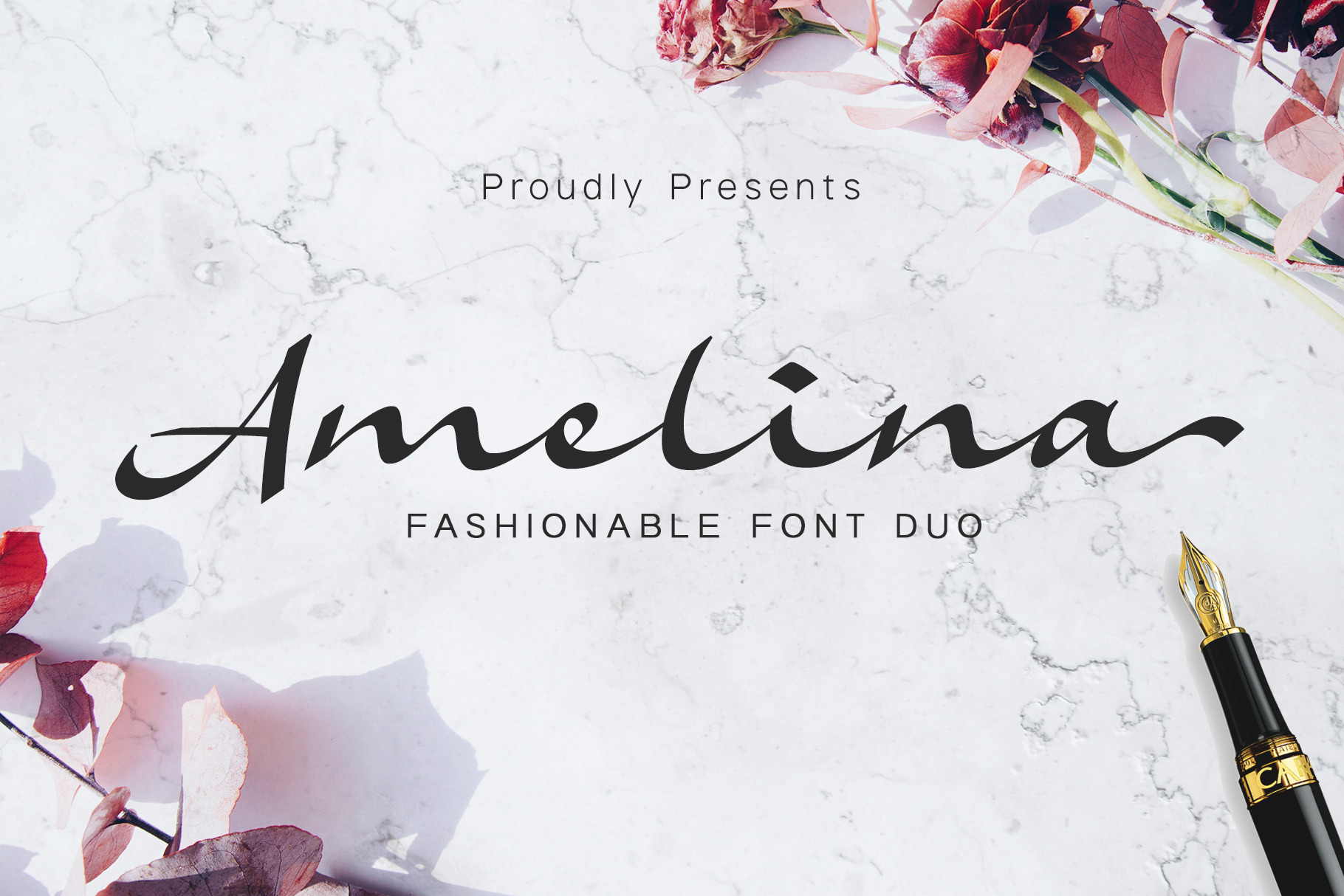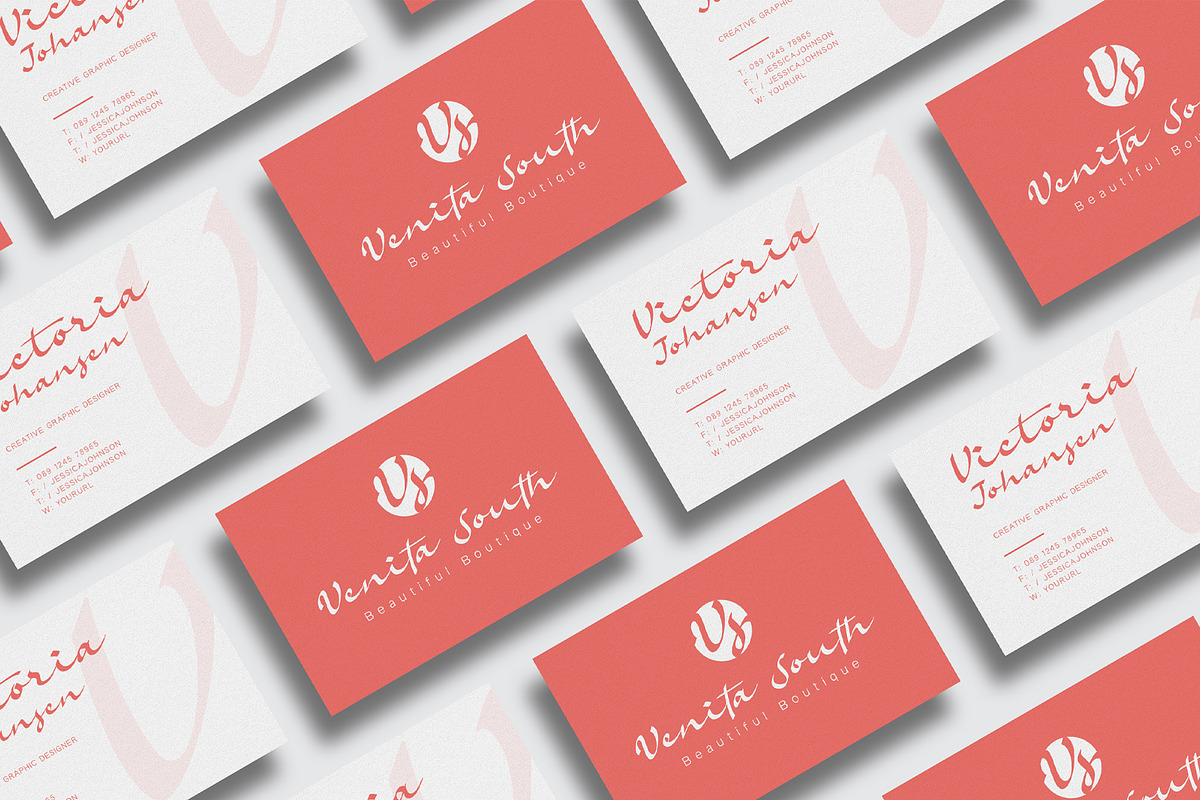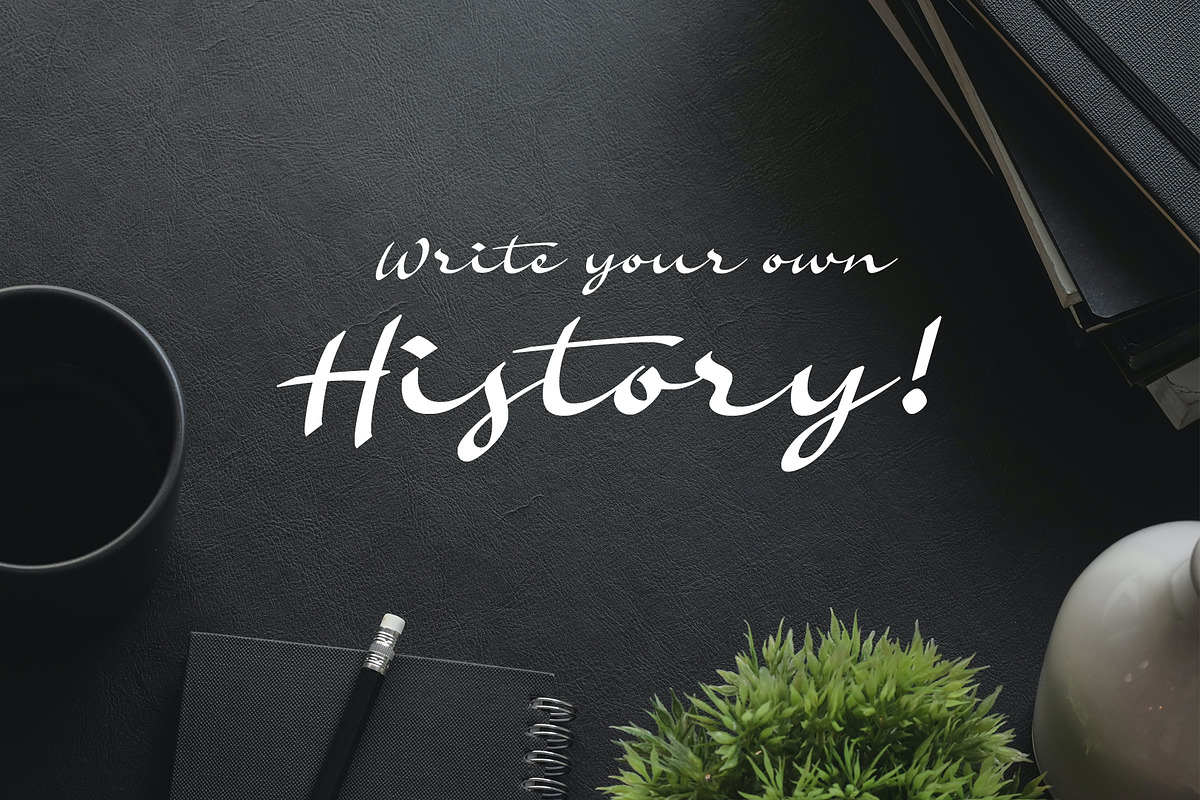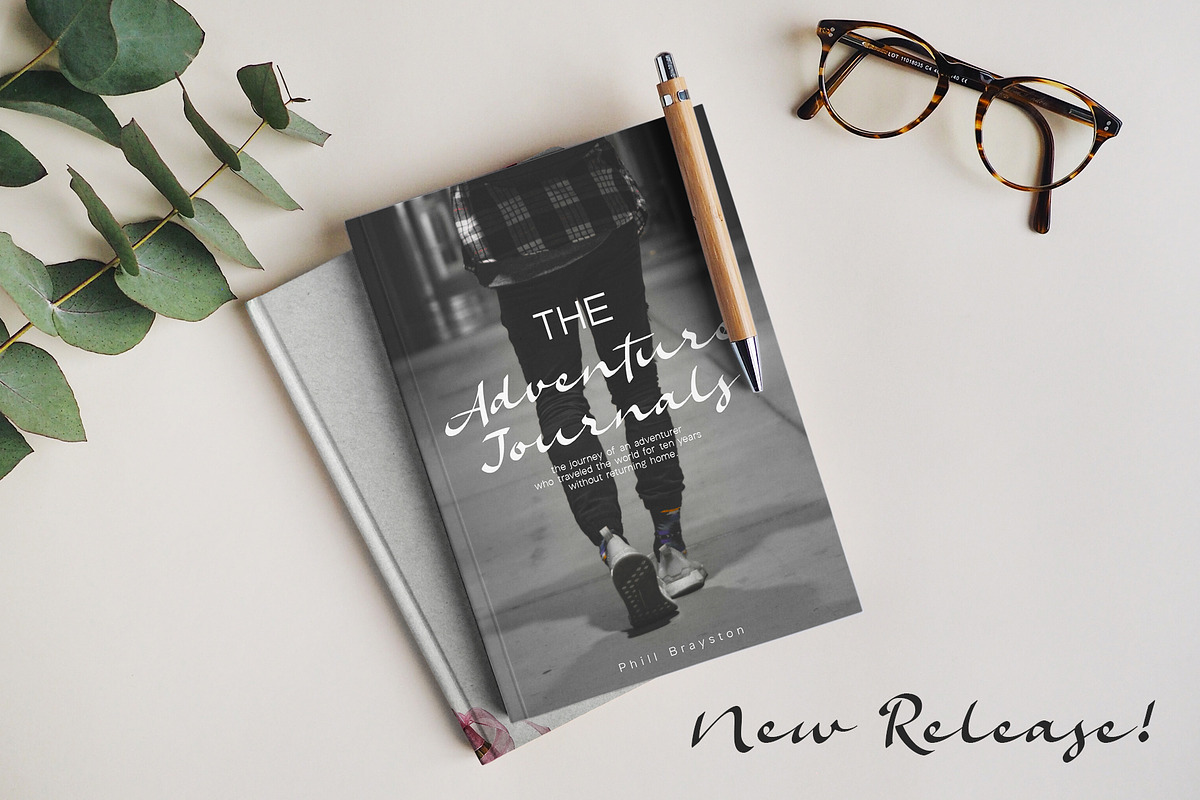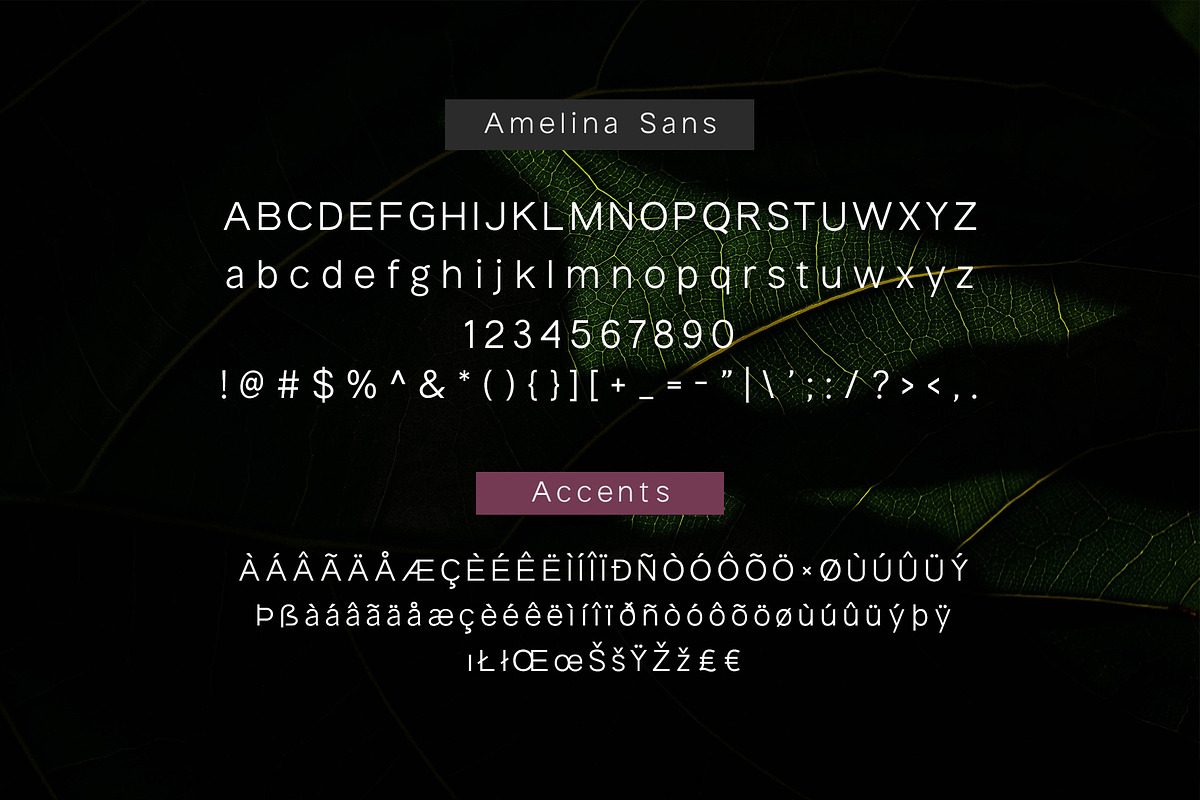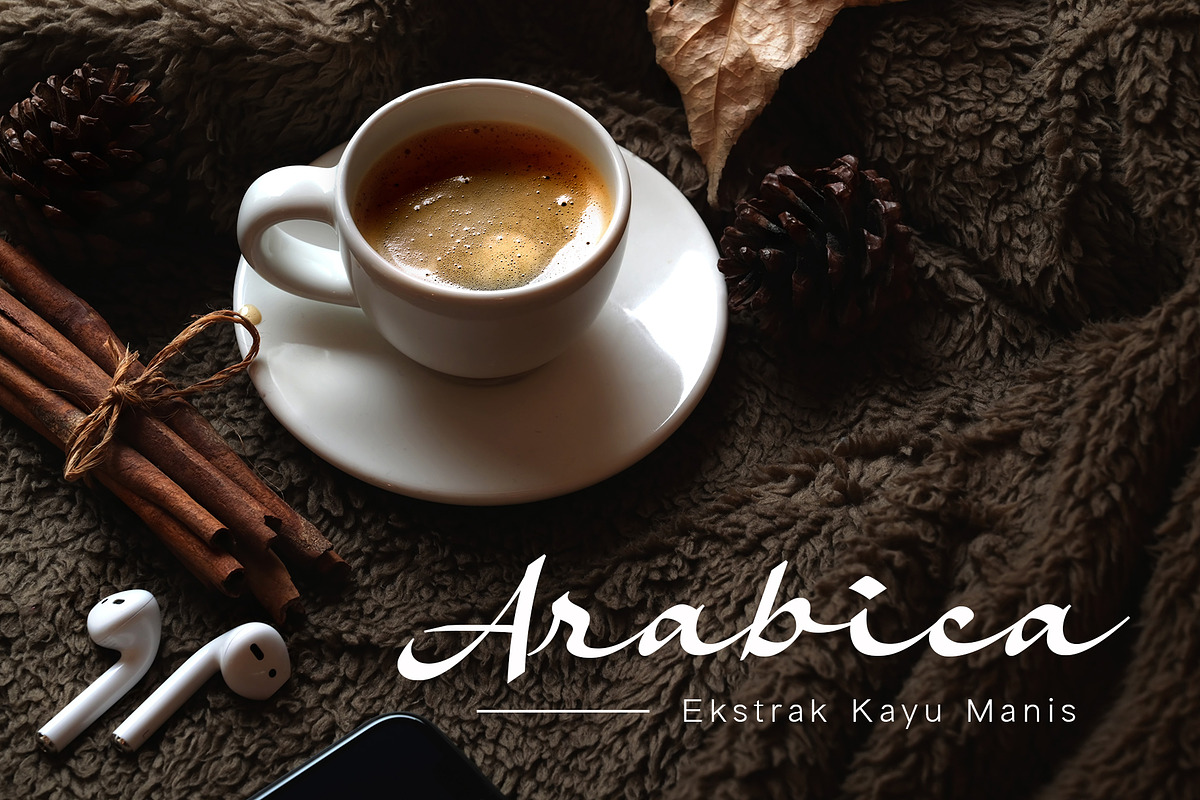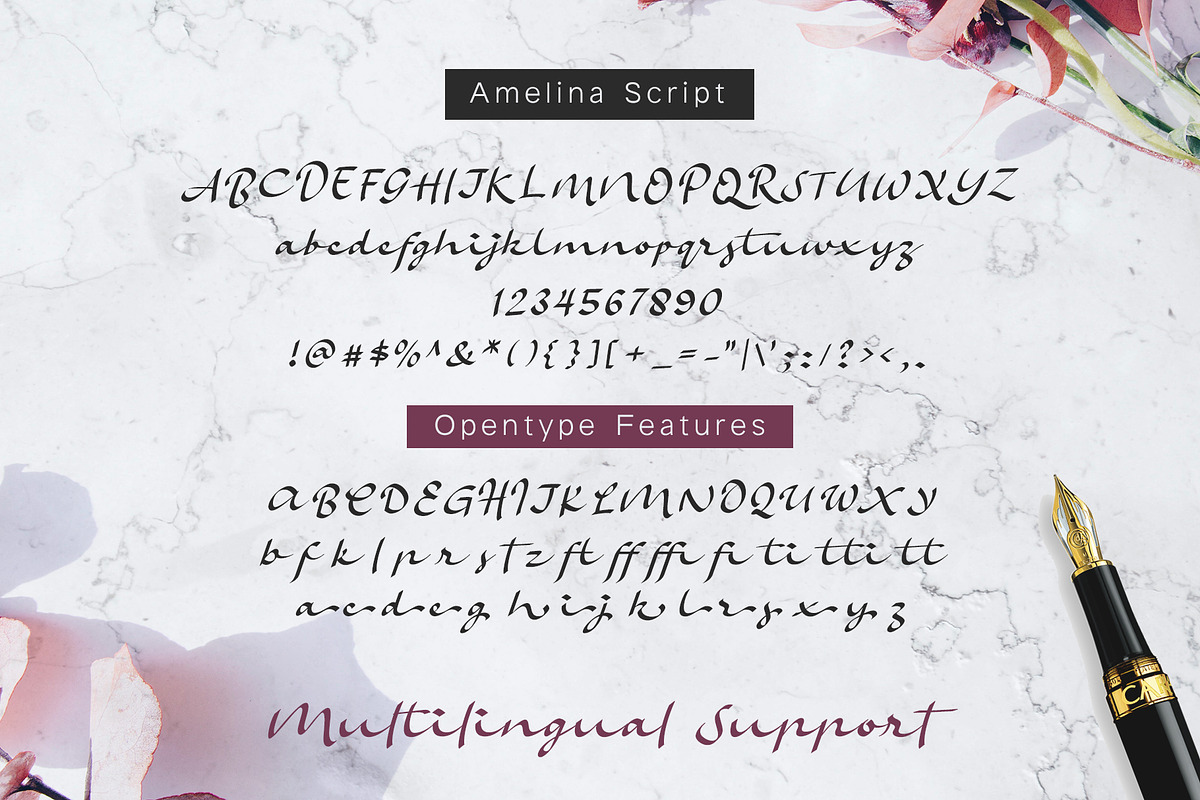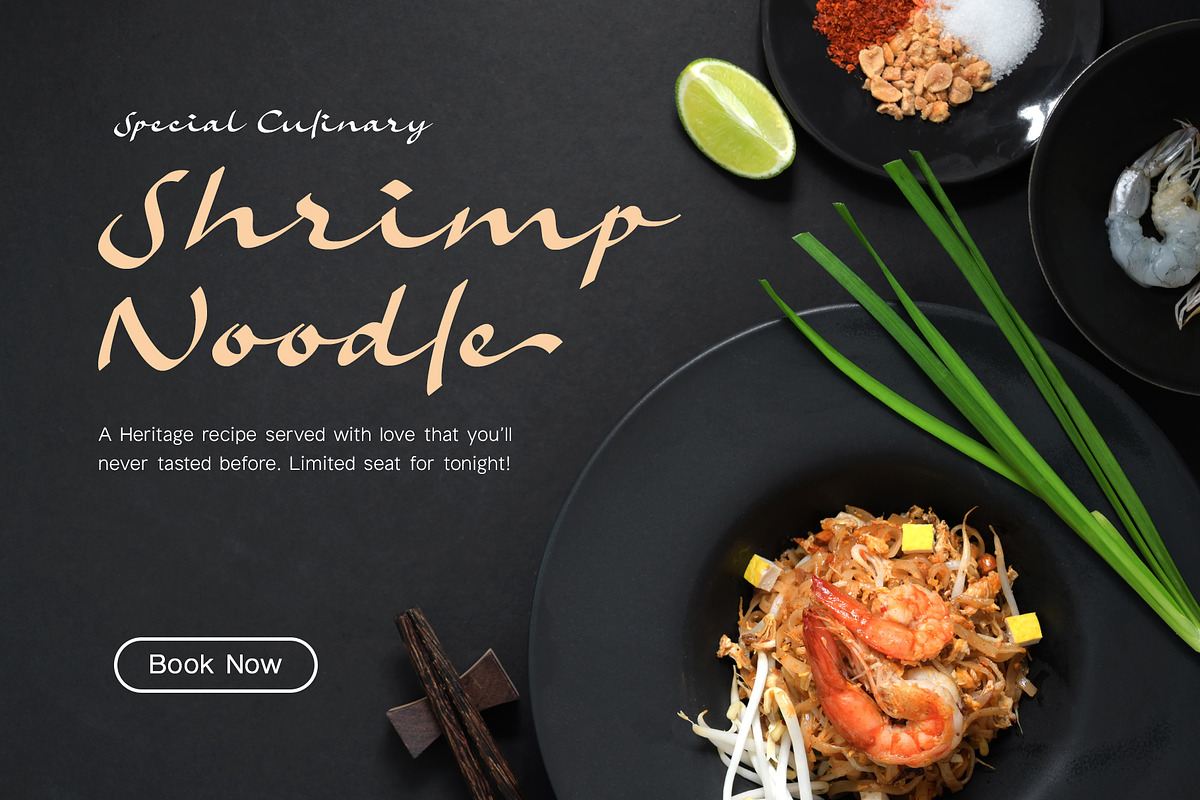
Amelina Font Duo
Introducing Amelina Font Duo.
Amelina Script is a classic signature font inspired by classic handwriting that using a flat pen (or signature pen) and written in the low height of letterforms. There is Amelina Sans as the combination, a clean sans serif that you can use the sans serif for subheadline, tagline, and body text.
This font duo has elegant looks and modern that perfect for logotype, display, label, watermark, signature, signage, photography, wedding, advertisement, fashion, food, magazine, and much more!
Amelina Script equipped with some Open-Type features such as stylistic alternates, stylistic sets, and ligatures that you can mix and match to get the natural handwriting looks!